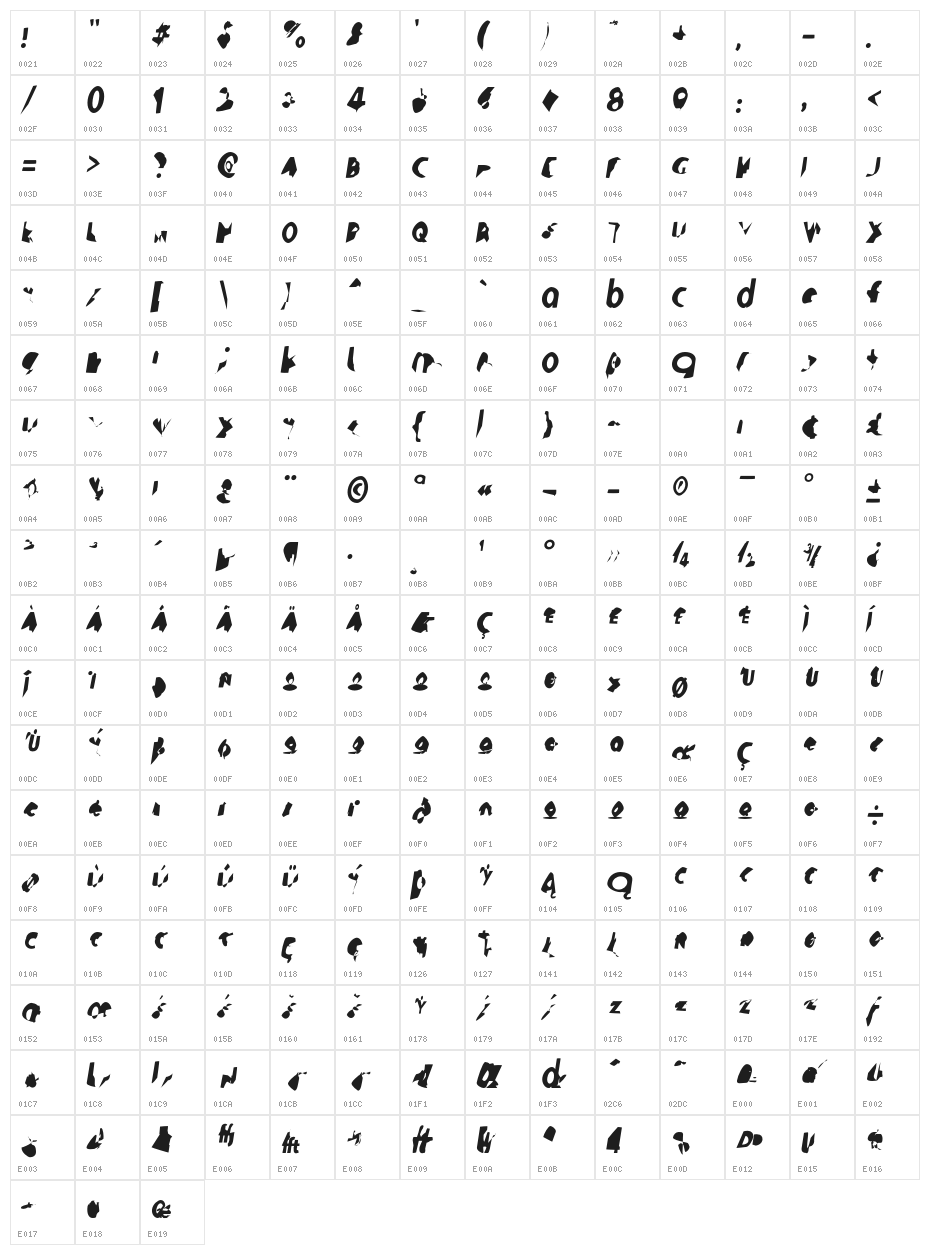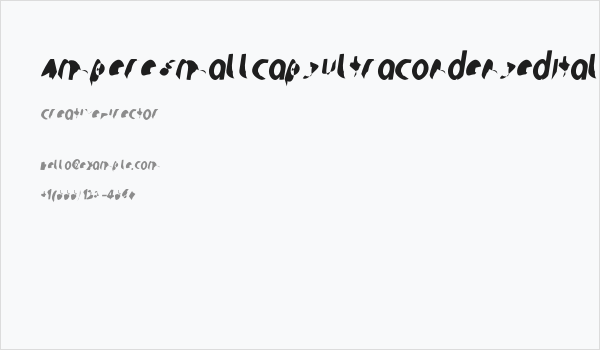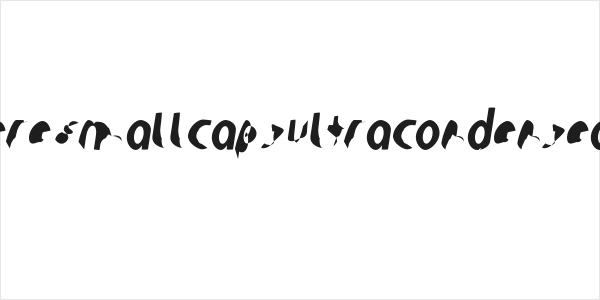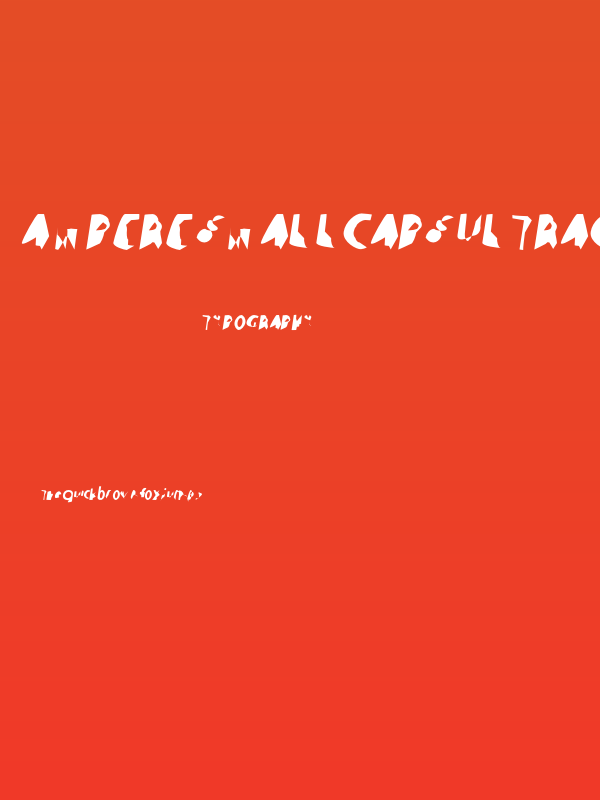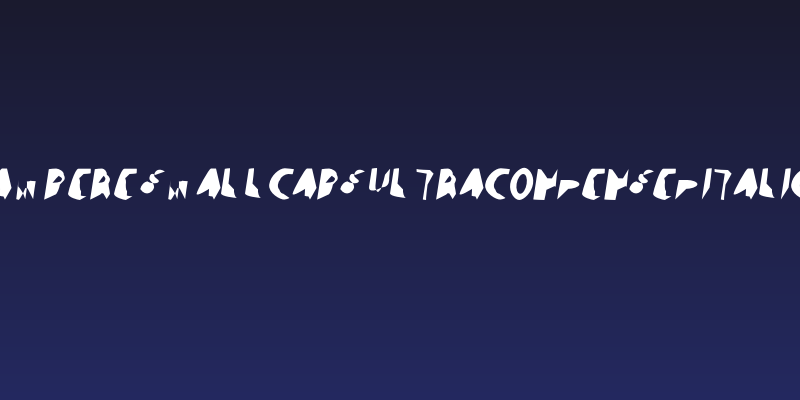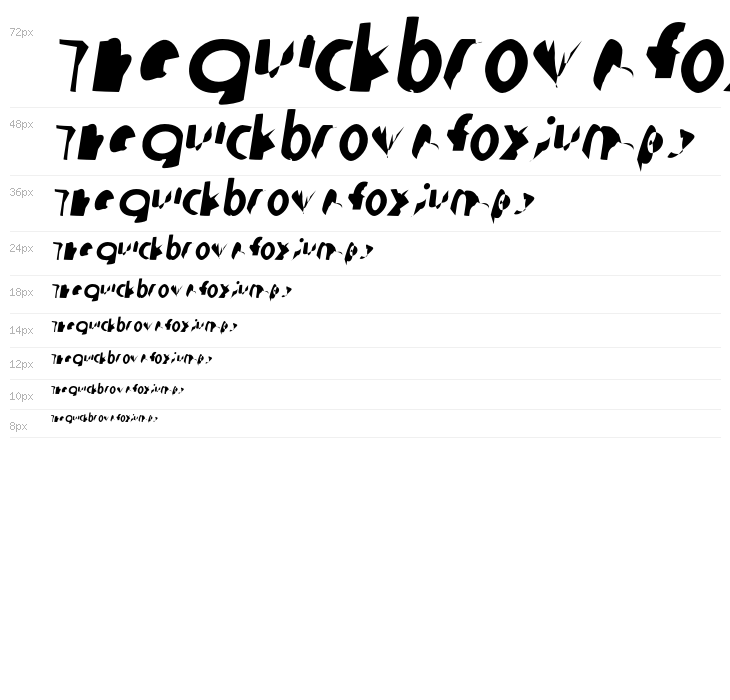
Ampere SmallCaps UltraCondensed Italic Font
Ampere SmallCaps UltraCondensed Italic Description
This font features a highly stylized and abstract design, characterized by its ultra-condensed and italicized form. The letters are bold and dynamic, with sharp angles and a fragmented appearance that gives it a modern, avant-garde feel. The uppercase and lowercase letters maintain a consistent style, with exaggerated curves and cuts that create a sense of movement and energy. The numbers and special characters follow the same design principles, adding to the font's cohesive look. Its unique style makes it stand out, suitable for projects that require a bold statement.